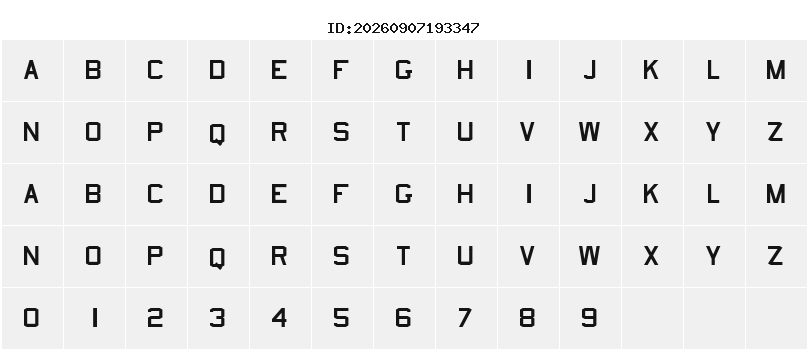
• Font Name: USN_Stencil
• Full Font Name: USN_Stencil
• PostScript Name: USNStencil
• Character Count: 68
• Designer: Fulcrum
• Manufacturer: Fulcrum
About USN_Stencil.ttf
USN_Stencil.ttf is a modern, elegant sans-serif font designed for ultimate readability and visual harmony. Perfect for branding, headlines, web design, and print materials.